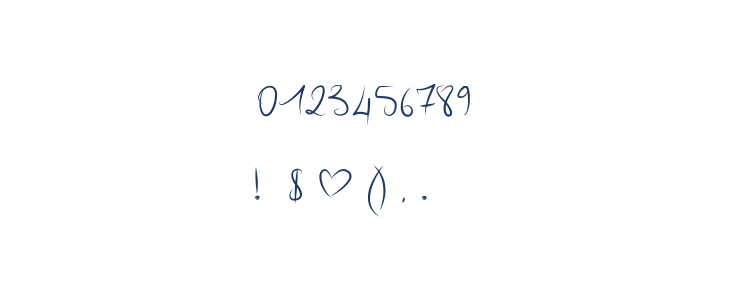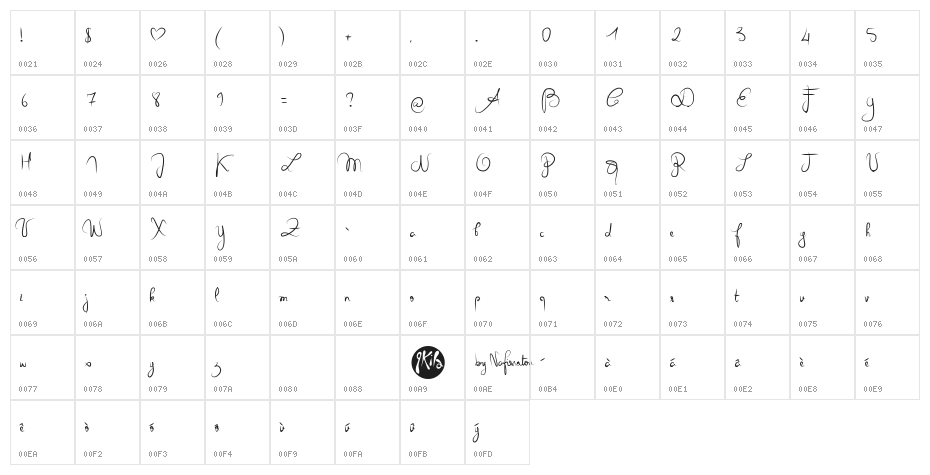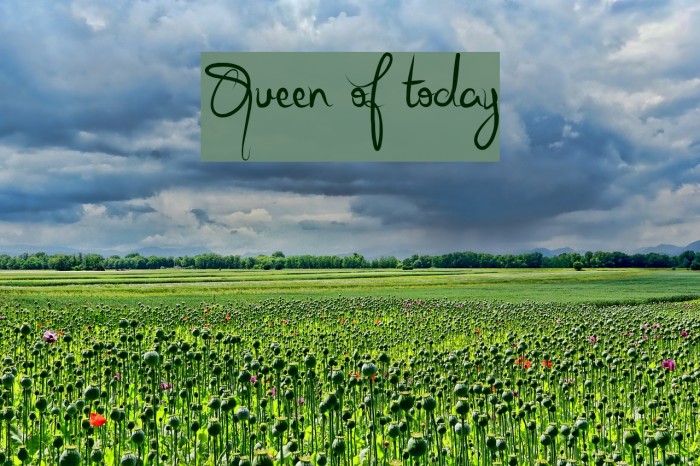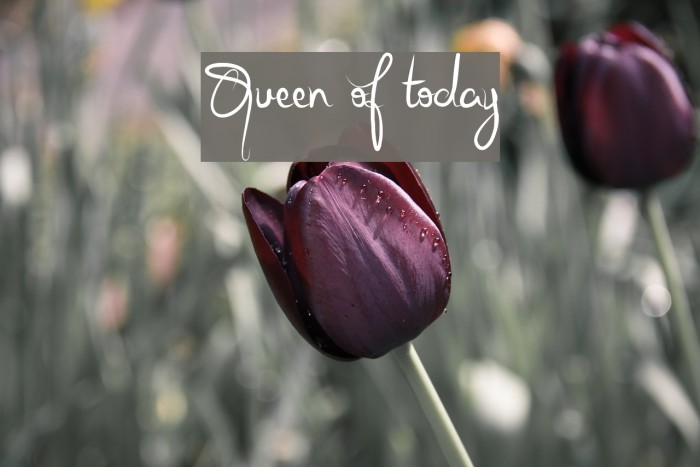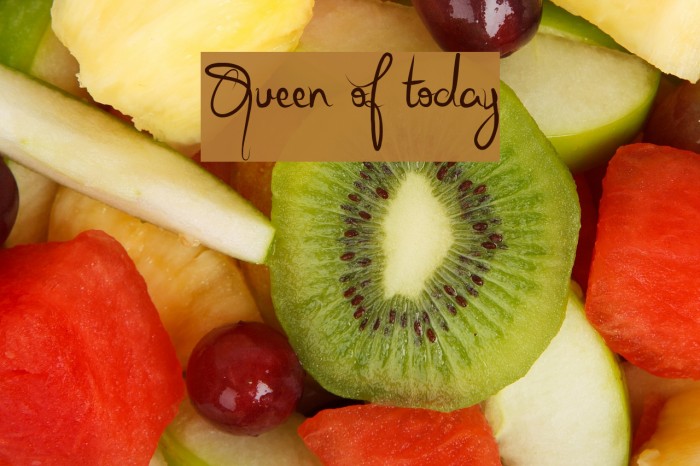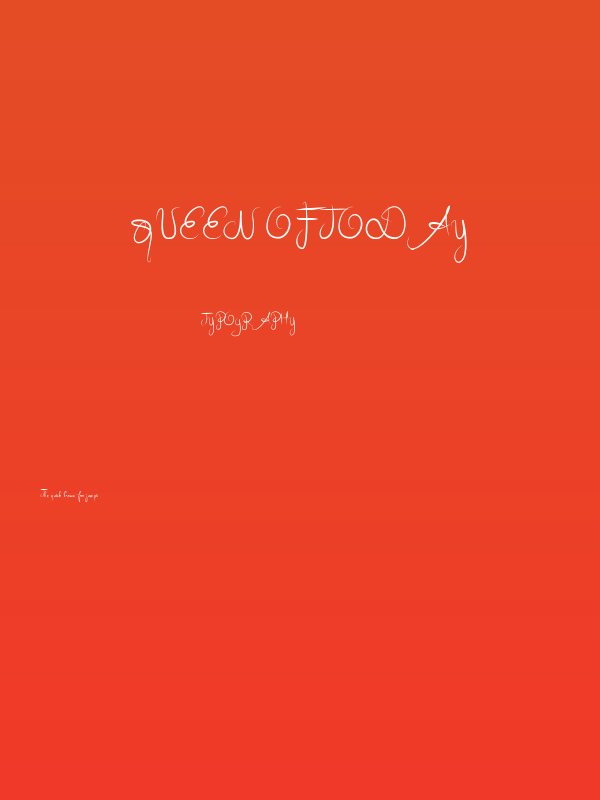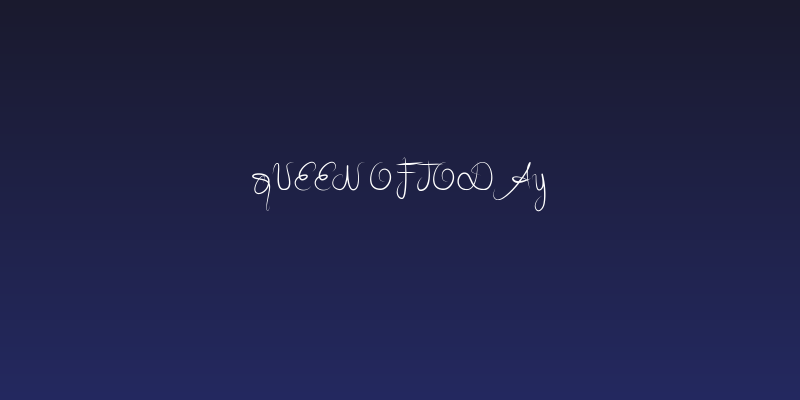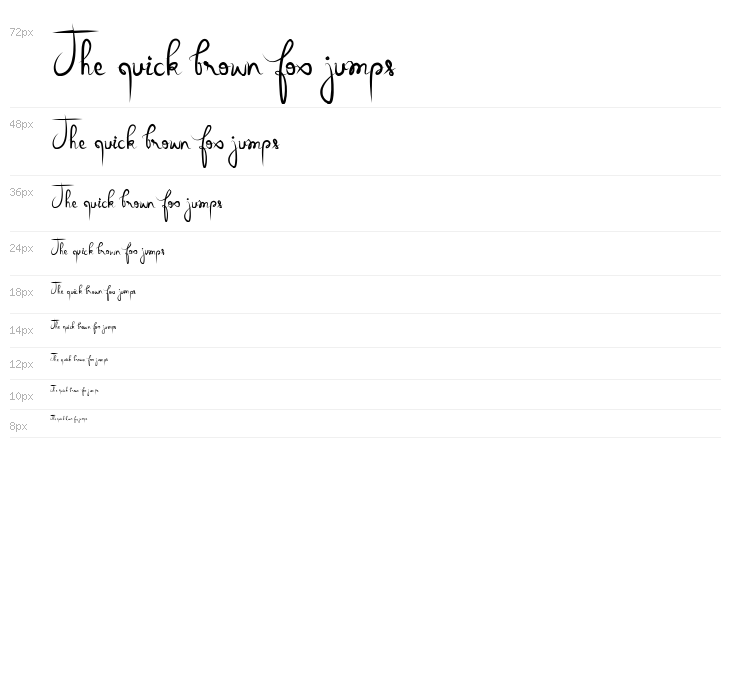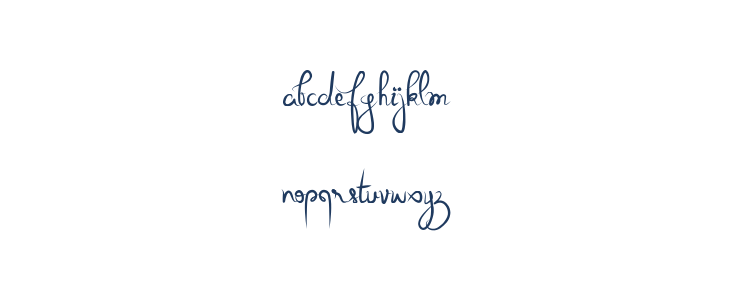
Queen of today Font
Queen of today Description
This font features an elegant and whimsical script style, characterized by its flowing and interconnected letterforms. The uppercase letters are ornate, with exaggerated loops and flourishes that give a sense of movement and grace. The lowercase letters maintain a consistent style, with a slightly more restrained design that complements the uppercase. Numbers and special characters follow the same aesthetic, ensuring a cohesive look across all elements. The overall appearance is both artistic and sophisticated, making it suitable for creative and decorative applications.
| Proposed Projects | Ideal for wedding invitations, greeting cards, branding, and artistic projects that require a touch of elegance and creativity. |